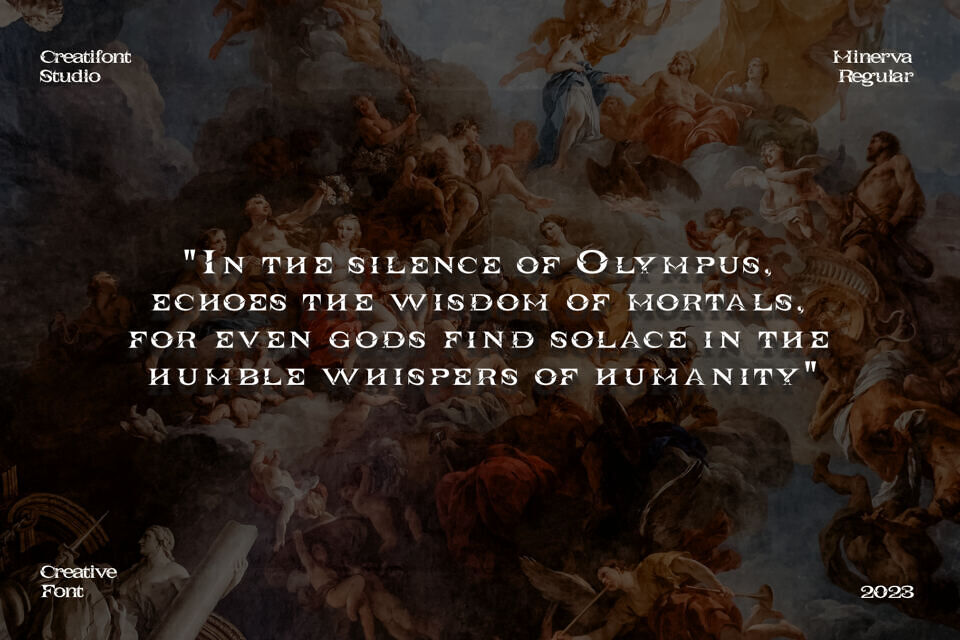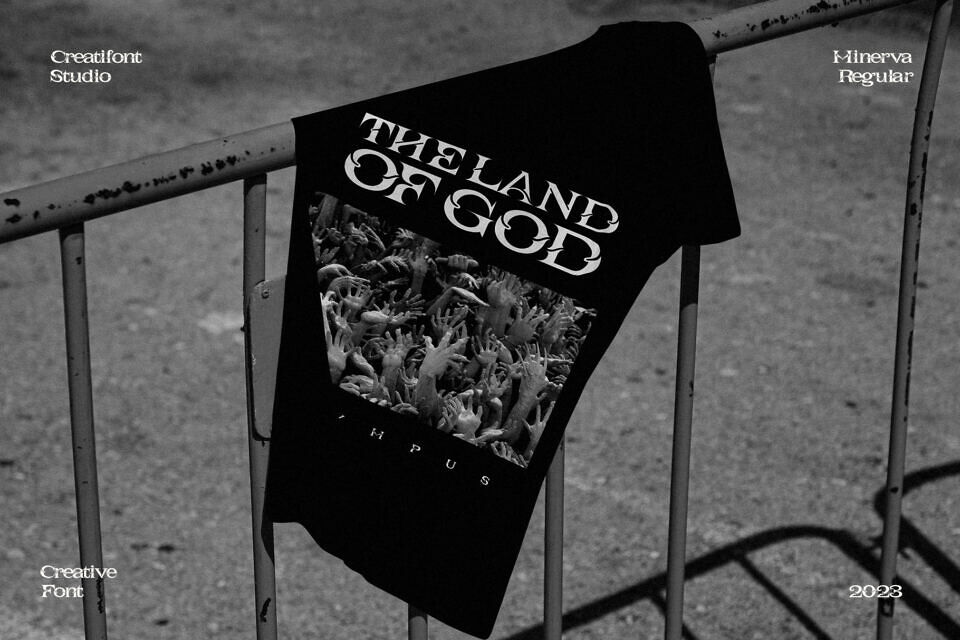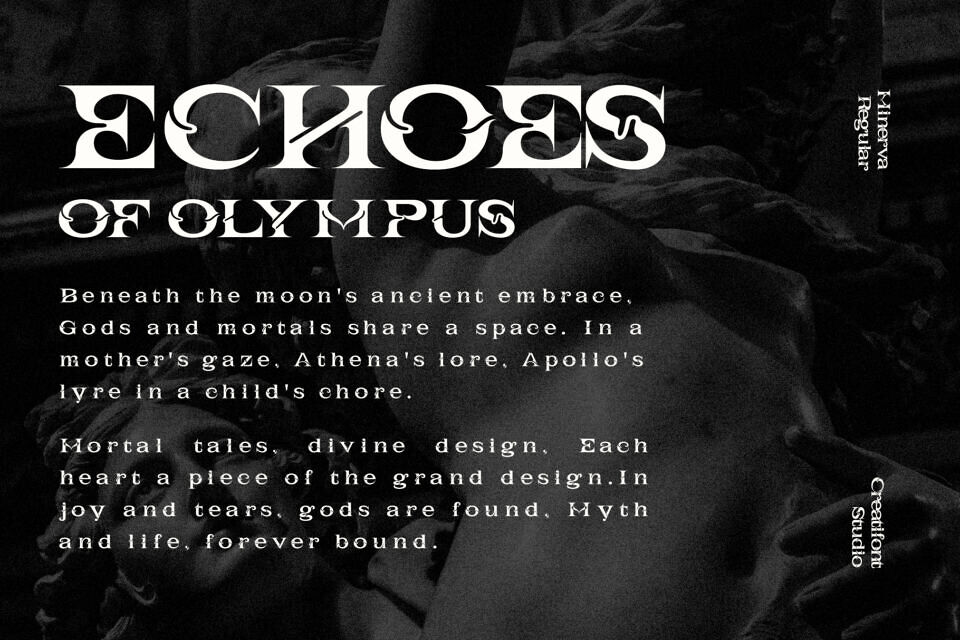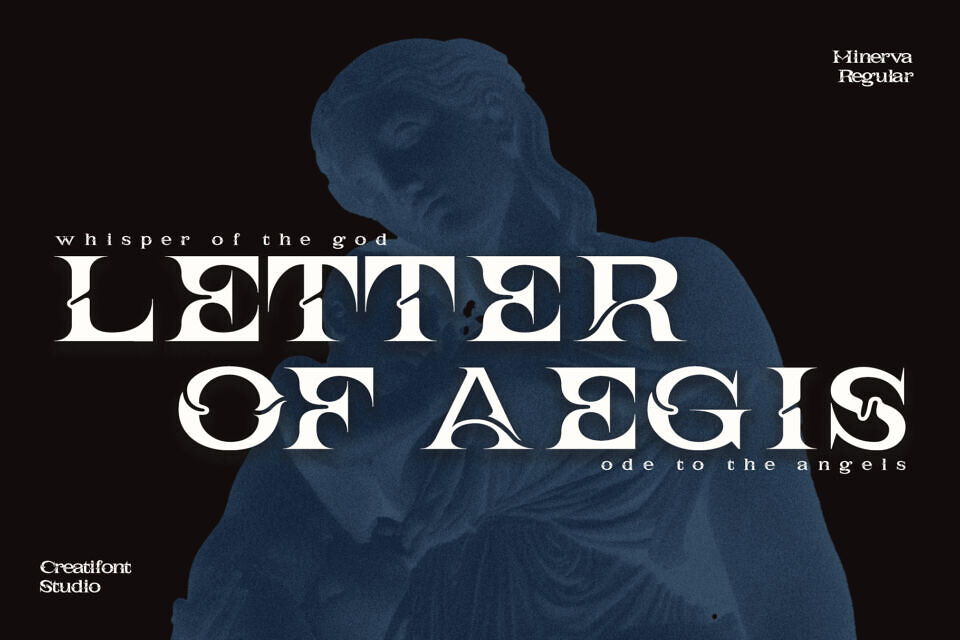
Minerva Font
Minerva is a serif font that radiates the grace and celestial softness, perfect for elegant and remarkably refined designs. With smooth and flowing curves, Minerva creates an unparalleled sense of sophistication. Each element and curve in its letterforms is meticulously crafted, adding an artistic touch and elegance that makes it suitable for projects requiring a special finesse.
Minerva is not just a font; it’s a typographic work of art that blends beauty and perfection, providing strong character and timeless elegance. With Minerva, your designs will shine with celestial grace and captivate all who behold them.